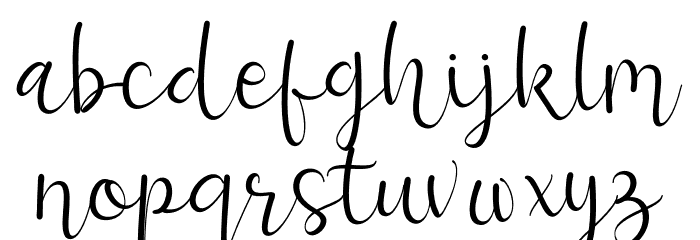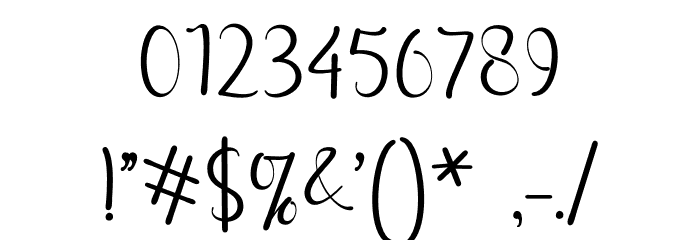
Ashanty Herlina Font
This font features a playful and elegant script style, characterized by its flowing, cursive letters and varying stroke widths. The uppercase letters are tall and slender, with a graceful, looping quality that adds a touch of sophistication. The lowercase letters maintain a consistent style, with some letters extending slightly below the baseline, enhancing its handwritten appeal. The numbers are clear and legible, matching the overall aesthetic with their slightly whimsical curves. Special characters are well-integrated, maintaining the font's cohesive look. This font is perfect for projects that require a personal, artistic touch.
A playful and elegant script font with flowing, cursive letters and varying stroke widths.
- Font: Ashanty Herlina
- Proposed Projects: Ideal for wedding invitations, greeting cards, branding, and social media graphics.
- Category: Script
- Use Case: Logos, Invitations, Social Media